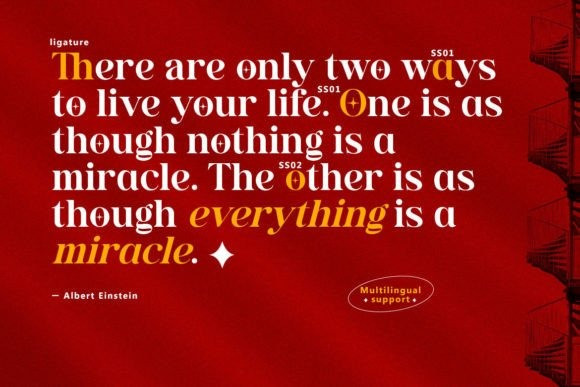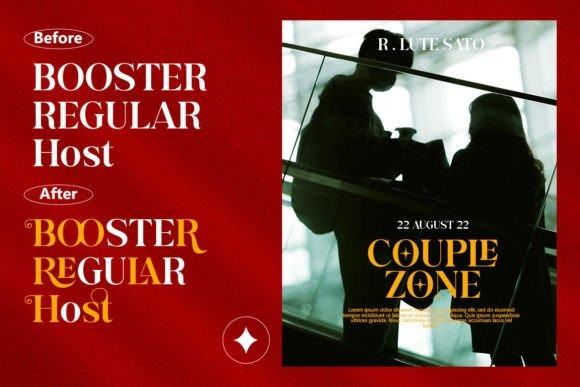
Aurennakari Font
AurenNakari is a stylish and elegant serif font. It looks beautiful on a variety of designs requiring a personalized style, such as wedding invitations, thank you cards, greeting cards, logos, and so on.